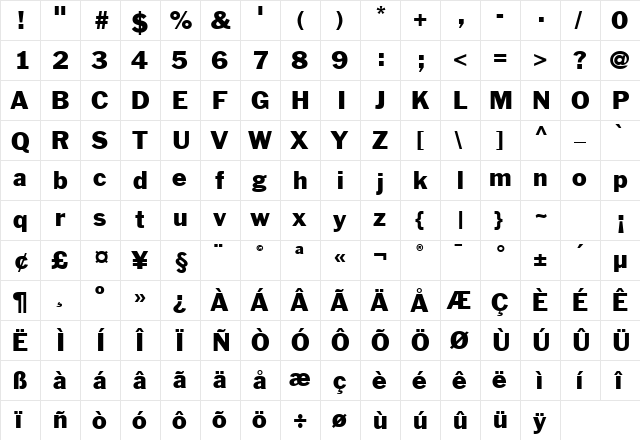
JackRoman Regular
Design Context for JackRoman Typeface
JackRoman is a composed and adaptable typeface that performs quietly and consistently across a wide range of design contexts.